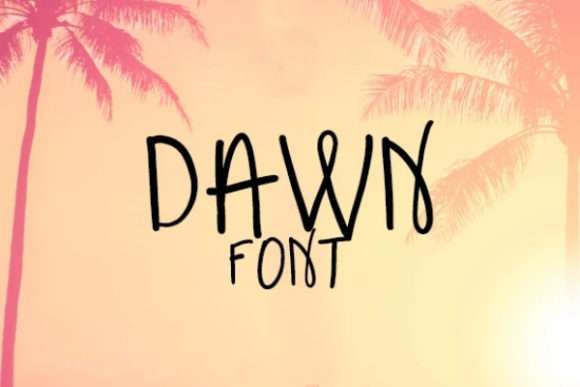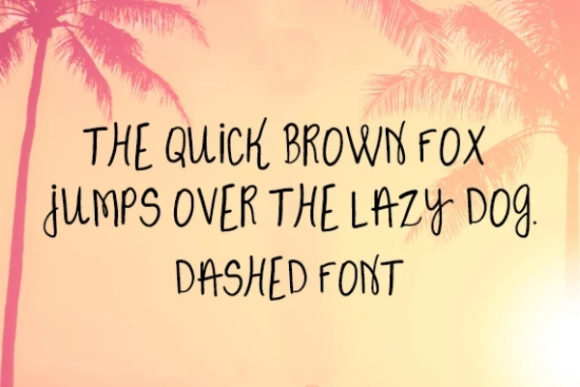
Dawn Font
About Dawn Font
Dawn is a beautiful handwritten font with a modern look. It features gorgeous swashes and ligatures that make this script incredibly versatile. Dawn will add a decorative touch in an instant